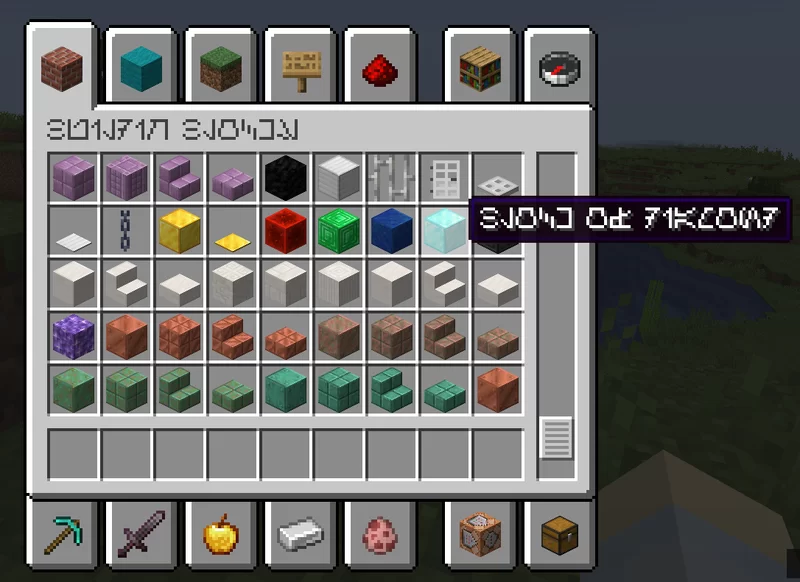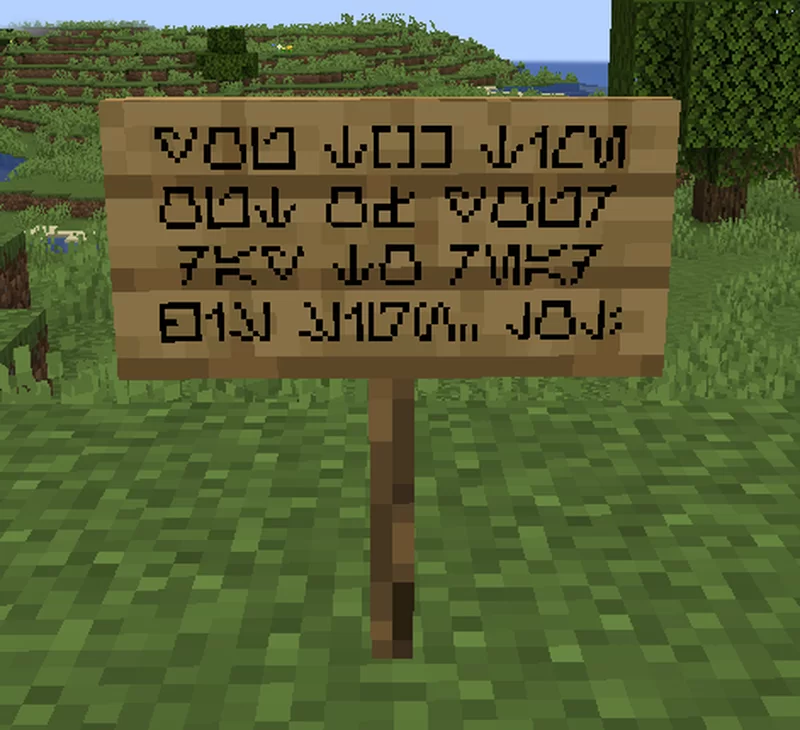
Aurebesh - Star Wars Font
The script/font used in the Star Wars universe in place of the Latin alphabet, now in Minecraft!
Aurebesh - Star Wars Font
The script/font used in the Star Wars universe in place of the Latin alphabet, now in Minecraft! Only changes characters that have an Aurebesh equivalent. Since Aurebesh has some characters that are usually two letters in written English, I've replaced some of the otherwise-unused punctuation with the 8 additional characters. To write them, check the chart below.
- Cherek [ch]: # - Enth [ae]: & - Onith [eo]: * - Krenth [kh]: + - Nen [ng]: = - Orenth [oo]: ^ - Shen [sh]: ` - Thesh [th]: ~